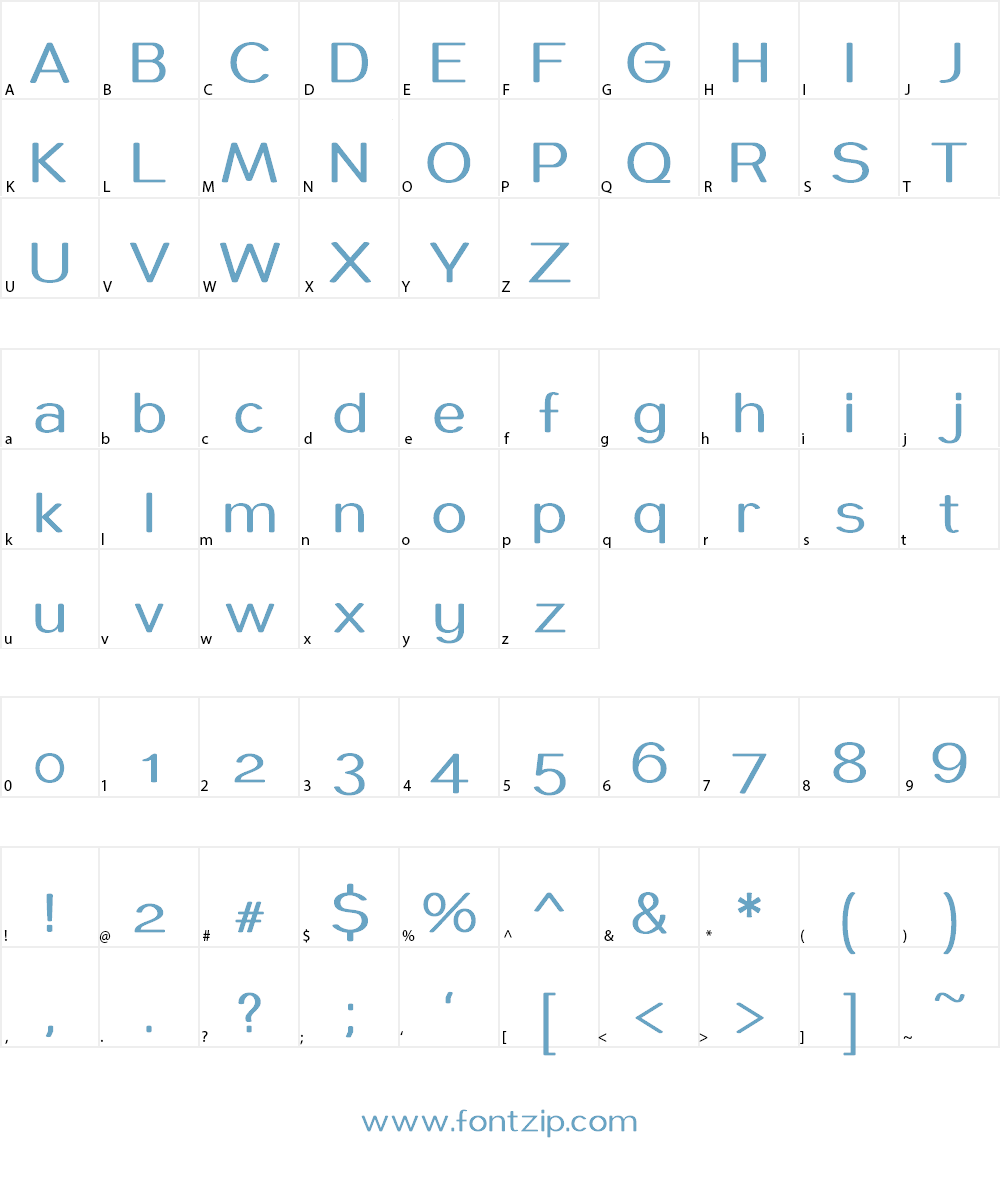
Please note that the standard numerals are old-style figures, but alternative aligning figures can be found in the private use area between E000 and E009.